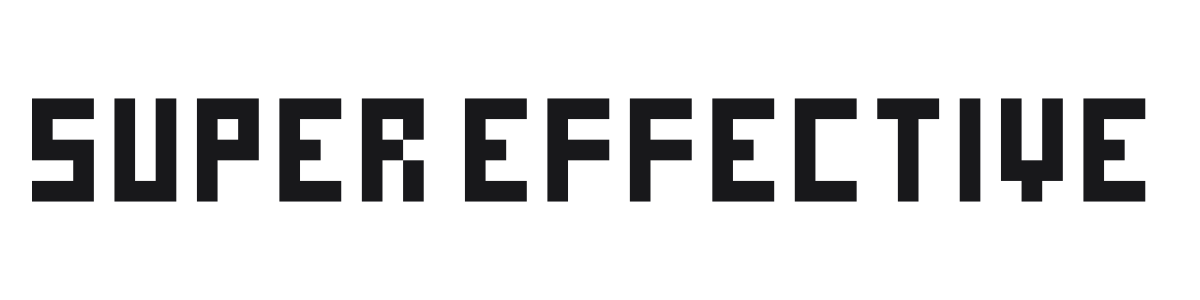
Super Effective
Super Effective is a bold, blocky pixel font by Andrea Ascari with chunky uppercase letterforms that feel right at home in retro gaming contexts. The characters have a satisfying 8-bit density to them, heavier and more impactful than most pixel fonts, which makes it a strong pick for game titles, score screens, and headlines that need old-school digital punch. Strictly a display face, built for big moments rather than long reads.